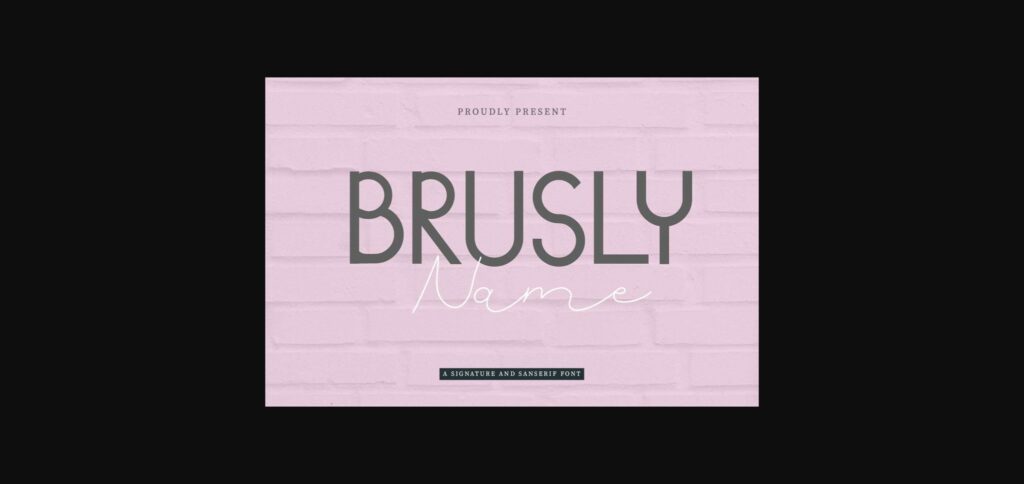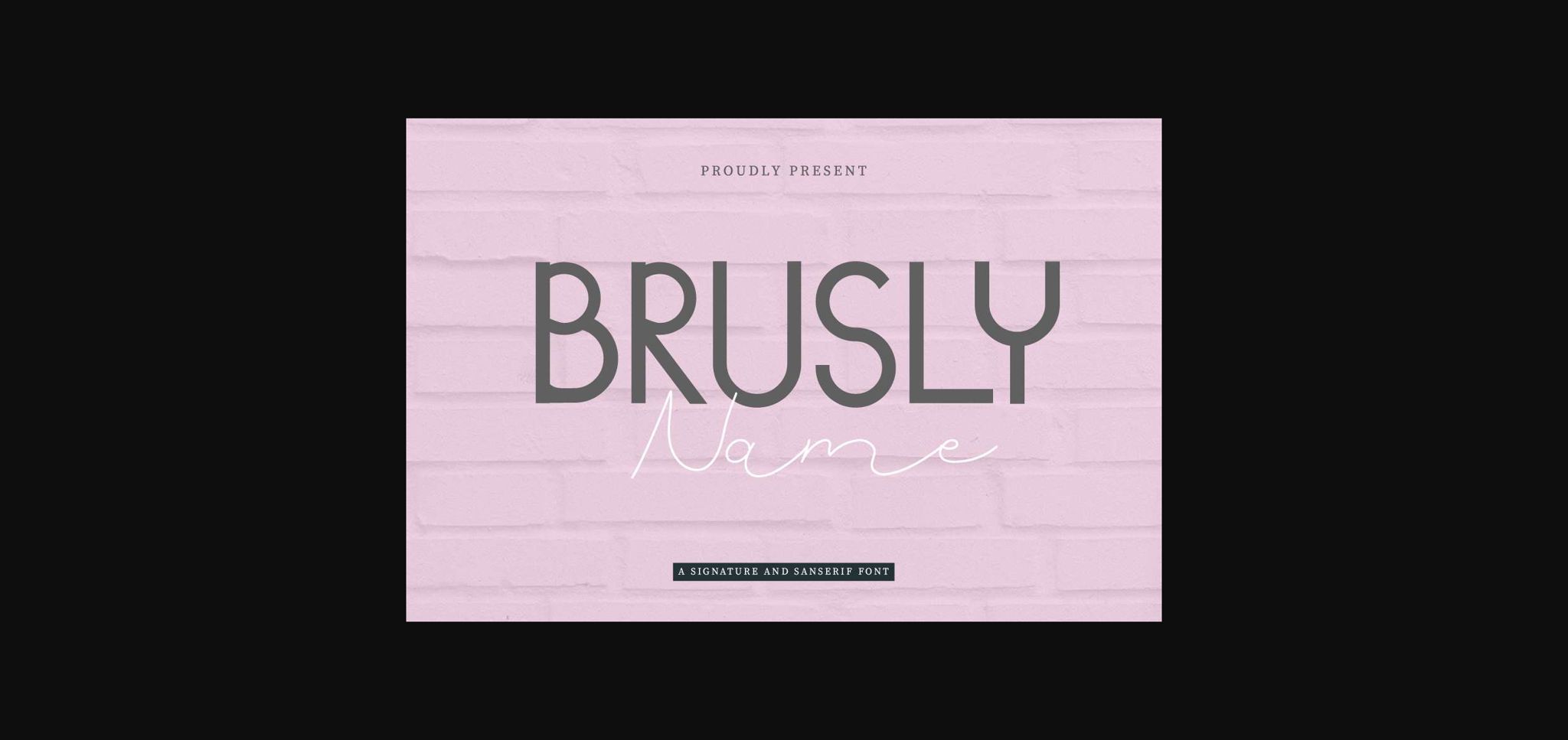
About Brusly Name Font
Brusly Name is a spectacular duo font (sans serif and script). Incredibly versatile, this font fits a wide pool of designs, elevating them to the highest levels. Add this font to your favorite creative ideas and notice how it makes them come alive!